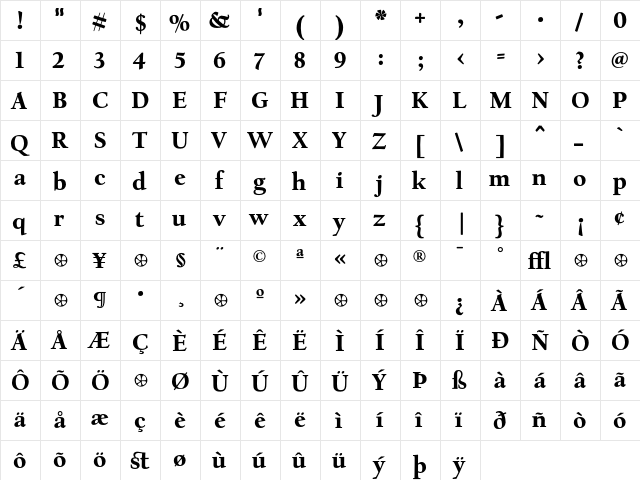
CalifornianText Bold Font Preview
CalifornianText Bold
Design Context for CalifornianText Typeface
CalifornianText takes a measured approach to typography — its balanced proportions and neutral character make it a reliable workhorse for both digital and print work. Its bold stroke weight gives it real presence on the page.